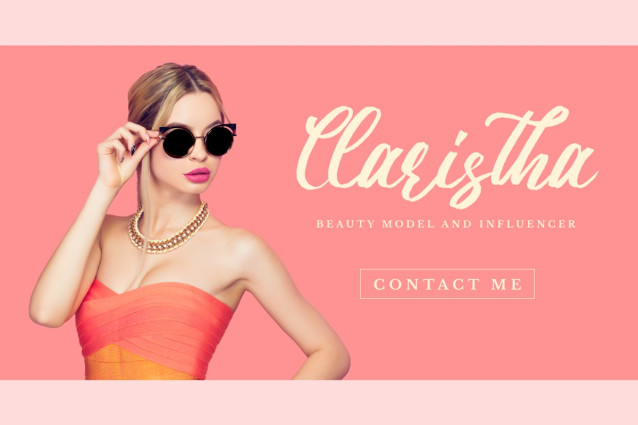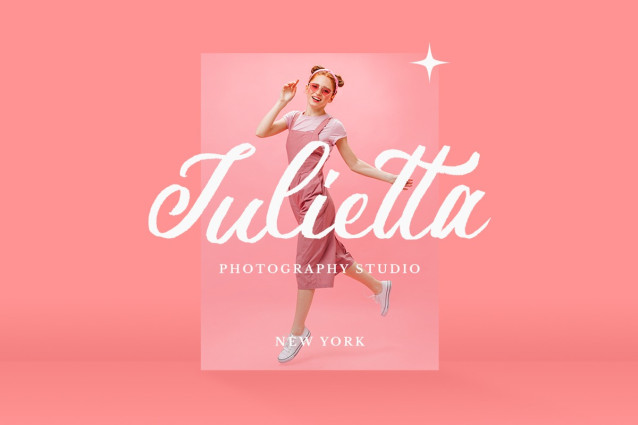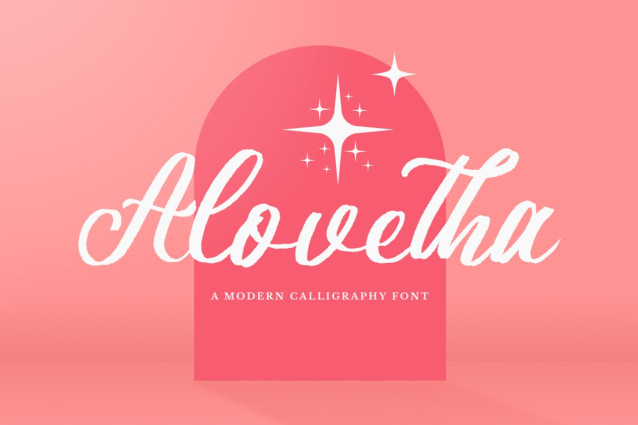
Alovetha Font
Alovetha font is a natural handwritten brush font. It is ideal for branding and decorating your projects, creating wedding invitations, book covers, marketing and more!